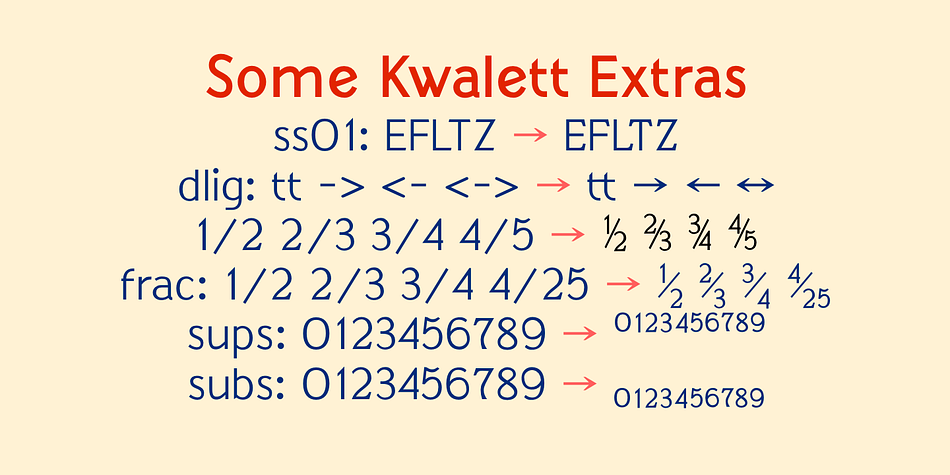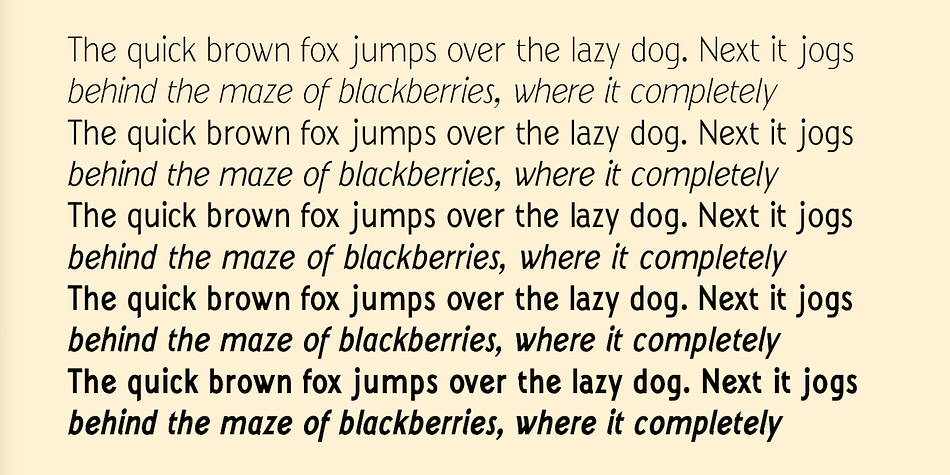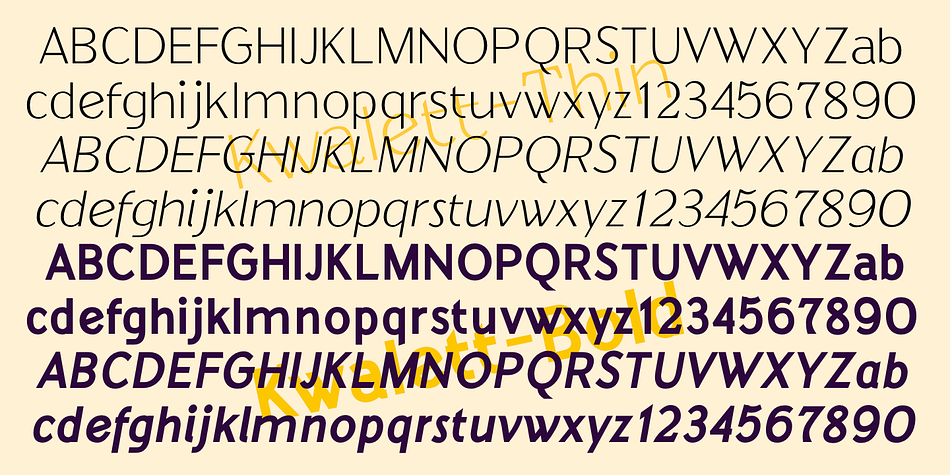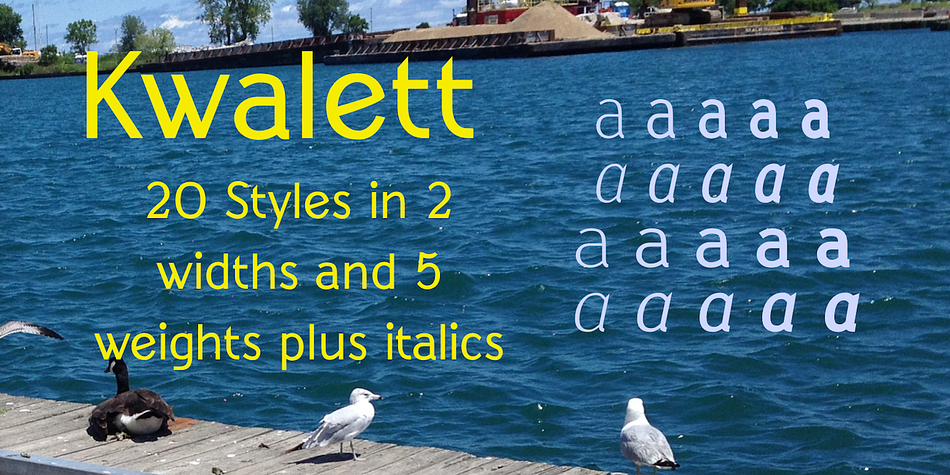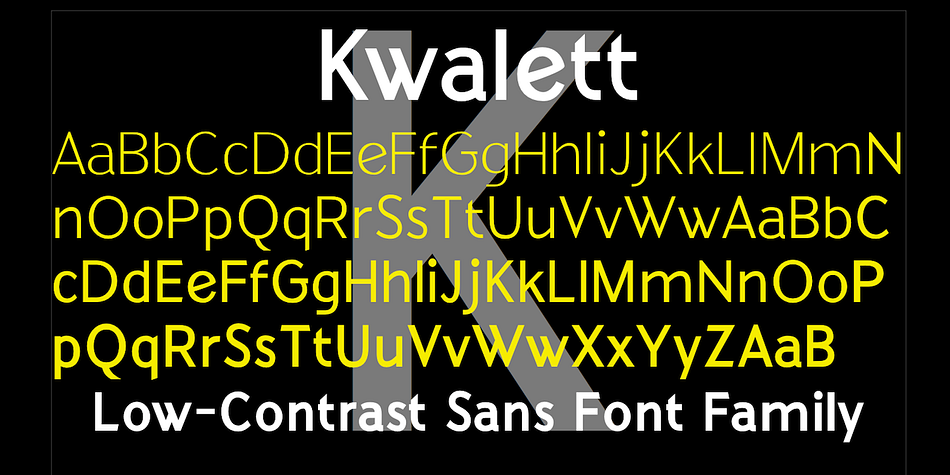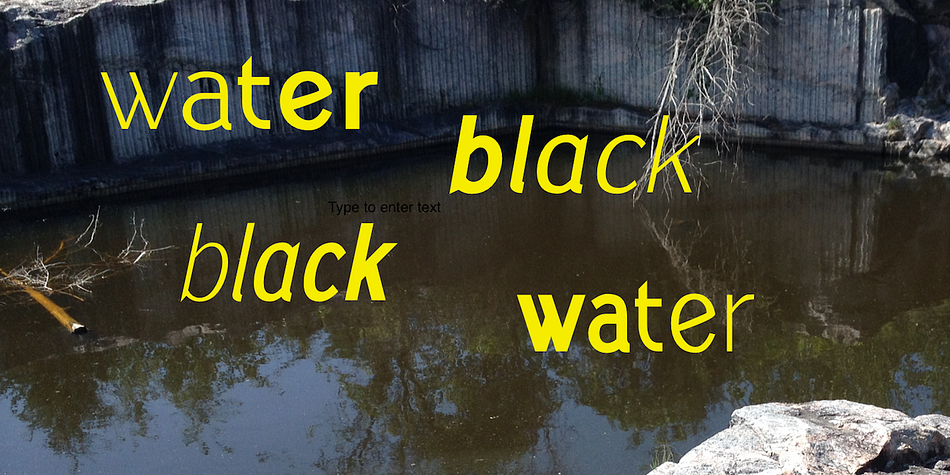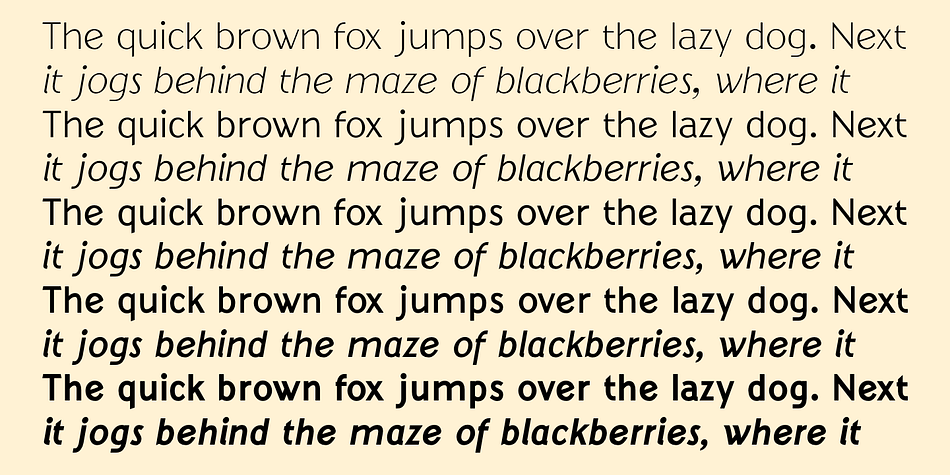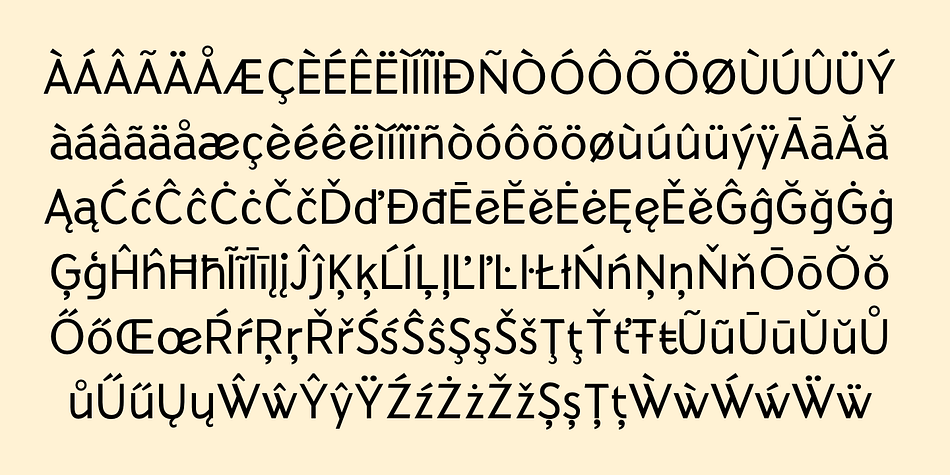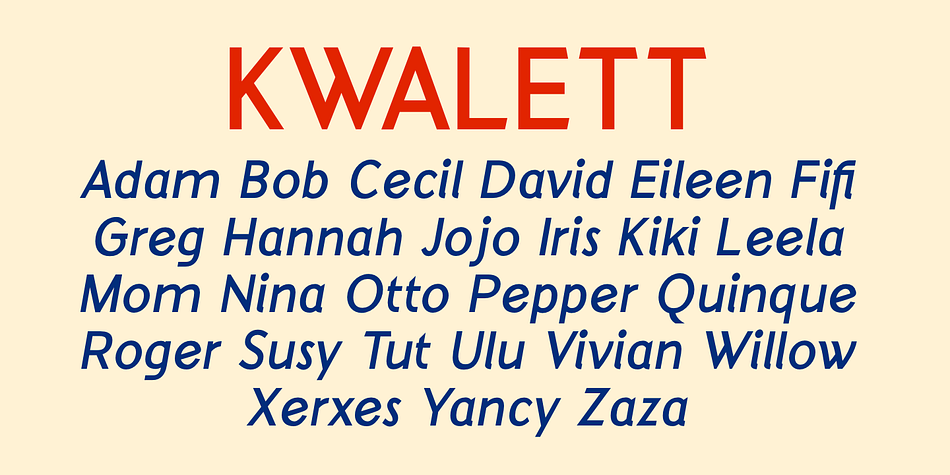
Designed by Robert Schenk, Kwalett is a sans serif font family. This typeface has twenty styles and was published by Ingrimayne Type.
Kwalett is a sans serif typeface family with low contrast and a high x-height. Kwalett has two widths, each with five weights and each weight has an italics. The family is derived from the thinnest member of the Qualettee family. As members of that family get bolder, their contrast increases. As members of the Kwalett family get bolder, their contrast remains very low. Kwalett is designed to work better as text than the Qualettee family.
The family has two ways to get fractions. A few fractions are preformed and are accessed with the OpenType discretionary ligatures feature. The OpenType fraction feature uses the superscript and subscript numbers to create any fraction.